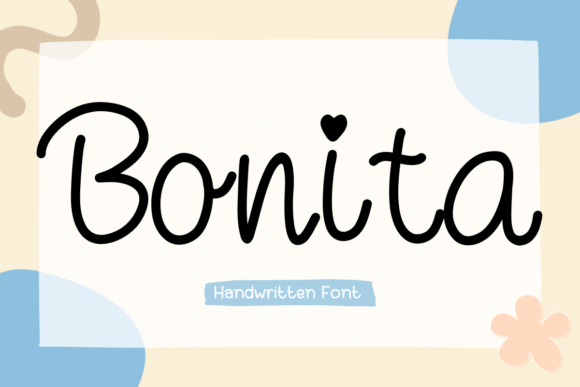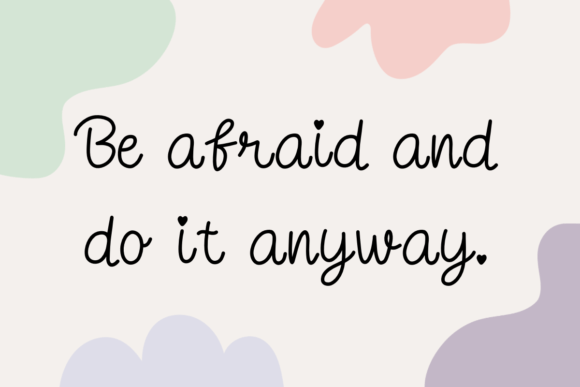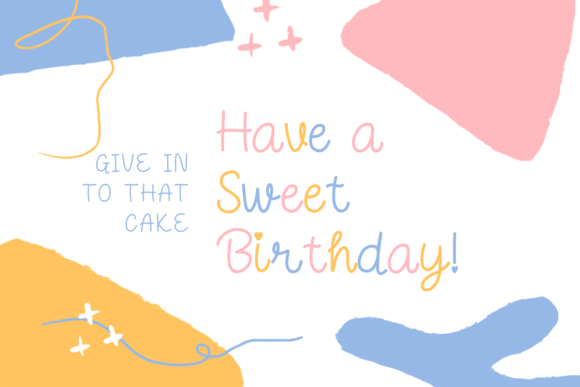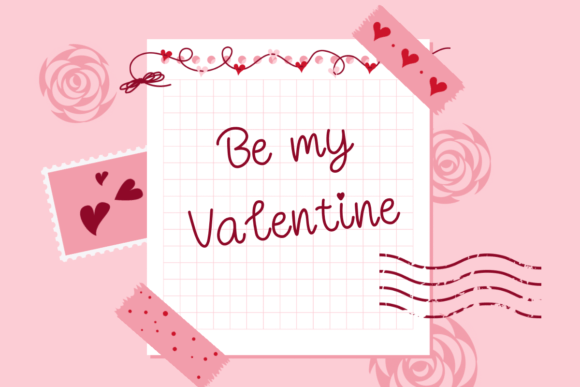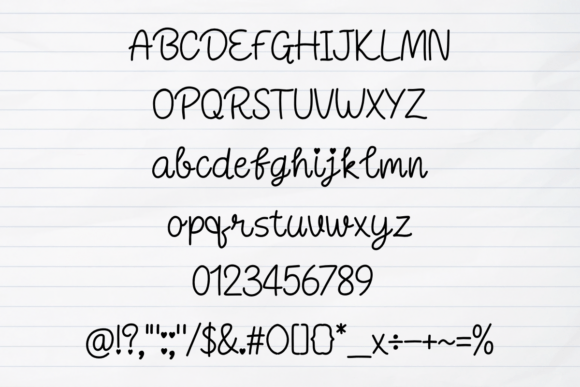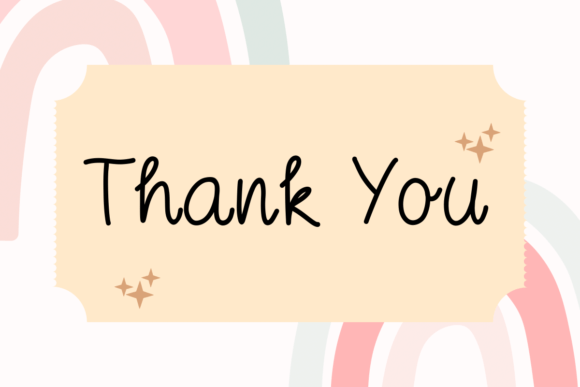
Have you ever been working on a project and suddenly, the right font comes along and makes everything fall into place? That’s exactly what happened to me when I discovered the Bonita Font. I was working on a digital design project and needed a font that would add a touch of whimsy and playfulness to my design. That’s when I stumbled upon Bonita, a cute and fun handwritten script font that quickly became my go-to choice.
Bonita Font is a versatile font that can be used for a variety of creative projects, from crafting to digital design, presentations, and even making greeting cards. Its unique and playful style makes it a valuable asset for designers who want to add a personal touch to their work. Whether you’re a seasoned designer or just starting out, Bonita Font is definitely worth checking out.
Bonita Font Key Features
- Unique Characteristics: Bonita Font features a distinctive, elegant script style with flowing connections between letters, making it ideal for formal and creative applications.
Bonita Font Review
Overall, I found the Bonita font to be a charming and elegant choice for various design projects. Here are some things that I think work well:
- ✨ Beautifully handwritten feel: Bonita font’s unique script style is reminiscent of handwritten notes, making it perfect for adding a touch of personality to your designs.
- ✨ Versatile: Bonita font comes in a range of weights and styles, making it suitable for use in various contexts, from titles and headings to body text.
- ✨ Friendly: The font’s friendly and approachable nature makes it an excellent choice for designs aimed at a younger audience.
- ⚠️ Limited legibility: At smaller font sizes, Bonita font can become difficult to read due to its intricate connections between letters.
- ⚠️ May not be ideal for long blocks of text: The font’s script style can make it challenging to read large amounts of text, which may require a more traditional font.
Overall, I think Bonita font is a great choice for designs that require a touch of elegance and personality. However, it’s essential to be aware of its limitations and use it judiciously to ensure the best results.
Getting the Most Out of Bonita Font
For optimal results, use Bonita Font in conjunction with a bold or italic style to create visual interest.
Experiment with different font sizes to create a hierarchy of text and draw attention to important information.
Bonita Font is commonly used in:
- Food and beverage labels
- Artistic and creative projects